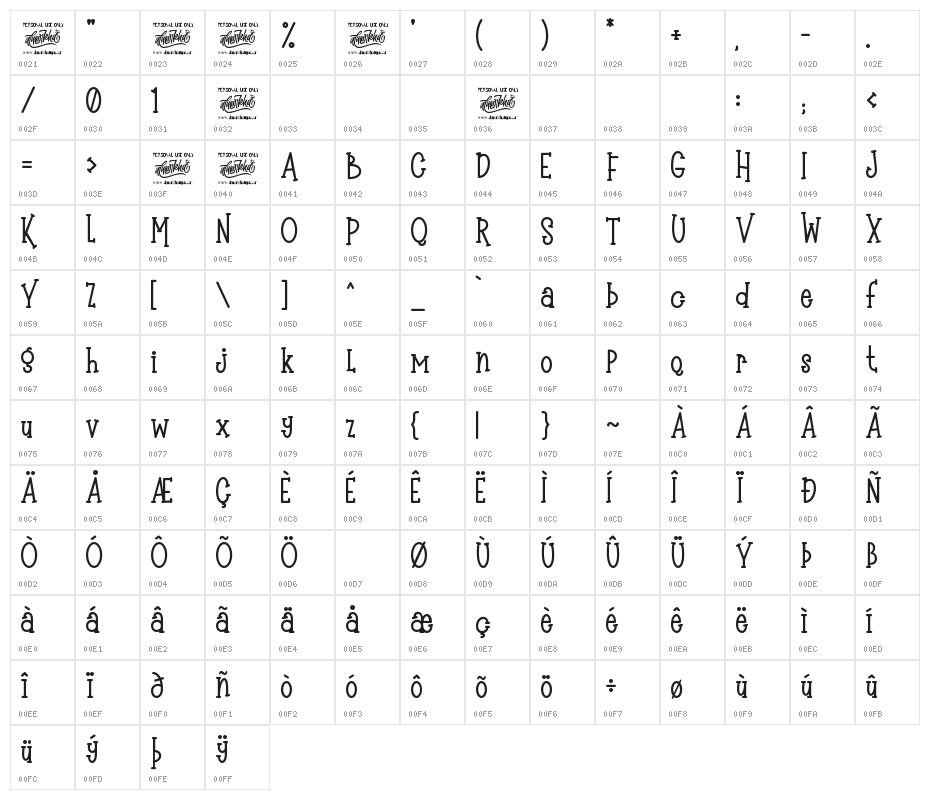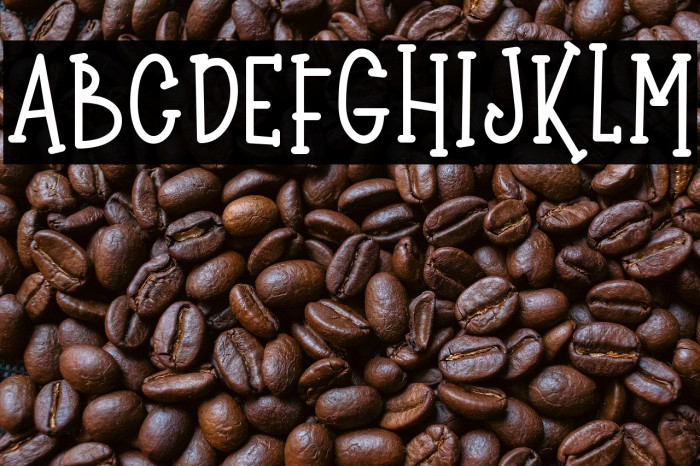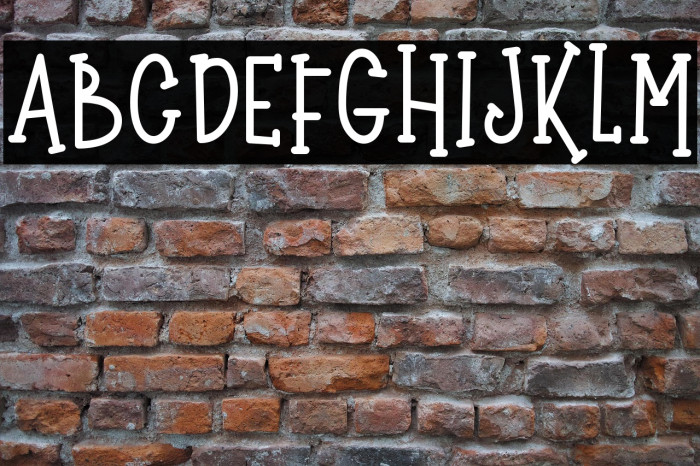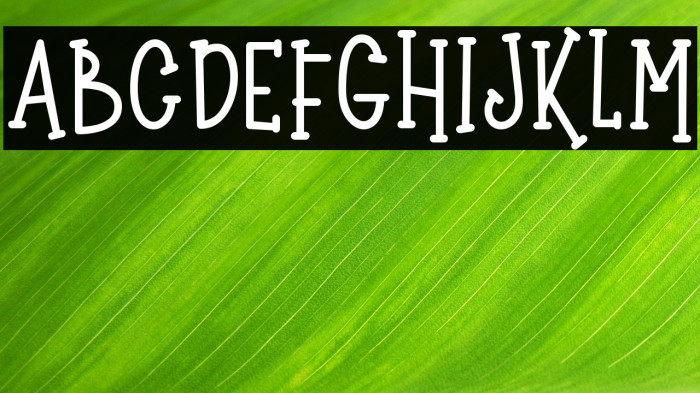
Wonder Knight Font
Wonder Knight Description
This font features a playful and whimsical design with a handwritten style. The characters have a slightly irregular shape, adding a touch of charm and personality. The uppercase letters are tall and narrow, while the lowercase letters are more rounded and compact. The numbers and special characters maintain the same playful aesthetic, making the font versatile for various creative projects. The strokes are consistent in width, giving the font a balanced appearance. Overall, it exudes a friendly and approachable vibe, perfect for informal and fun designs.
| Overall Style | Playful |
| Use Case | Headlines, Logos, Informal Text |
| Proposed Projects | Ideal for children's books, greeting cards, playful branding, and casual invitations. |